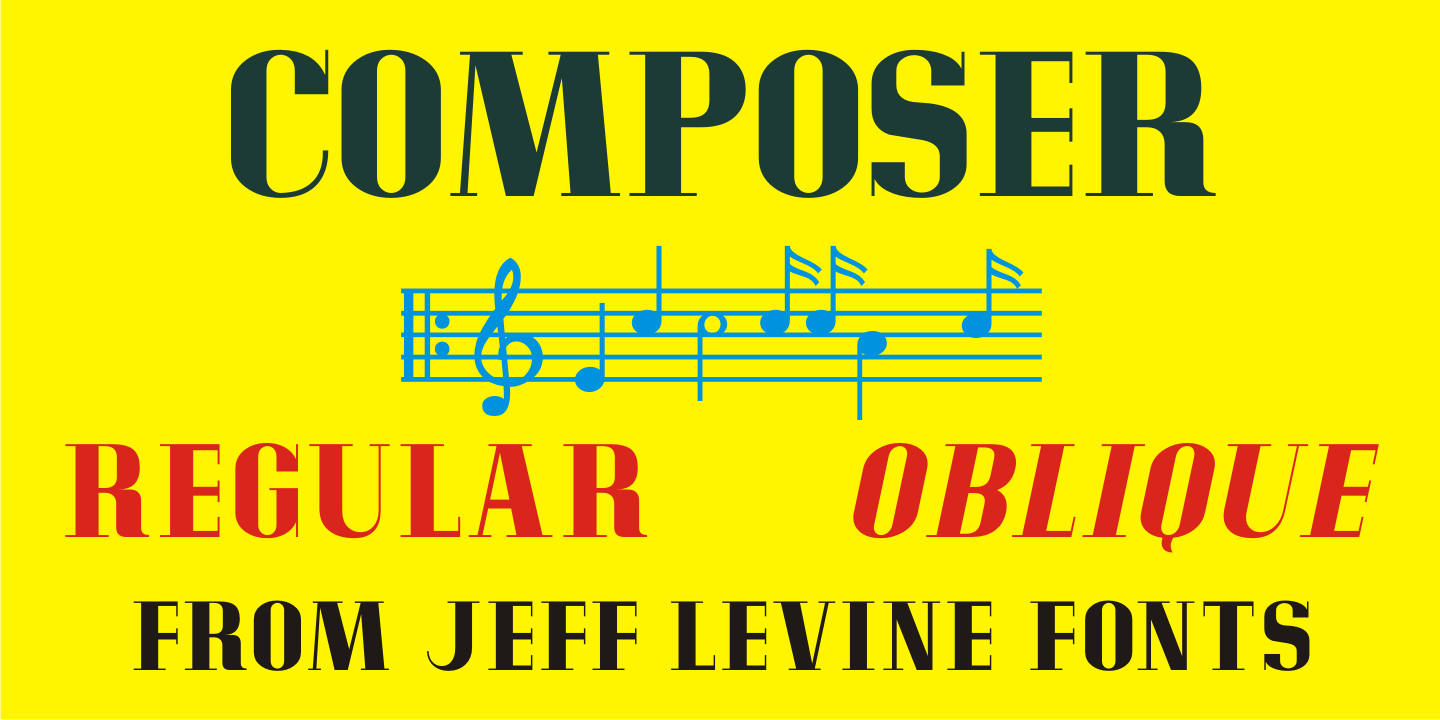
Composer
There are thousands of pieces of vintage sheet music available for collectors and curiosity seekers.
Prior to the 1930s, a large percentage of them had wonderfully hand-lettered titles on the covers, but gradually there was a shift by music publishers to utilizing metal type for the bulk of their output.
Normally set in all-caps format, certain type faces reappear in growing frequency and familiarity.
Composer JNL is one such example of a 'workhorse” font, and has been re-drawn and reinterpreted by Jeff Levine Fonts in both regular and oblique versions.